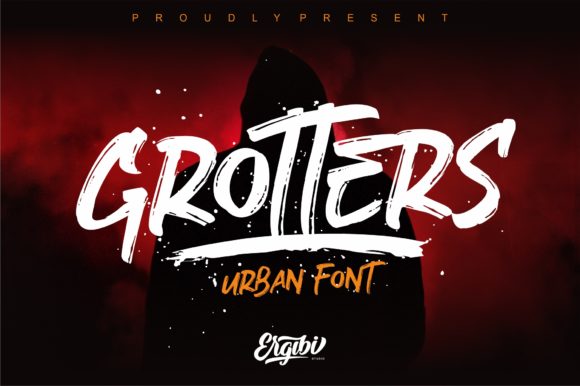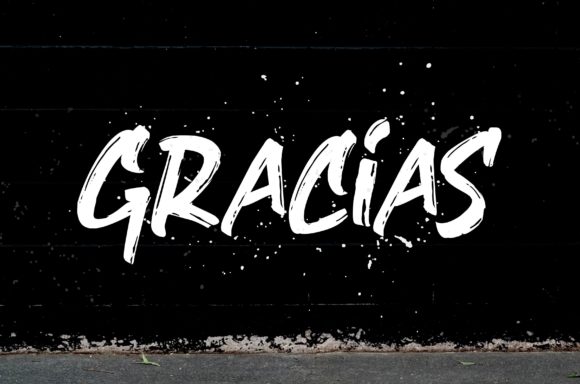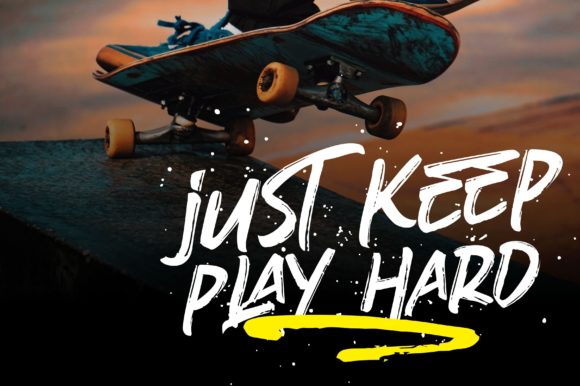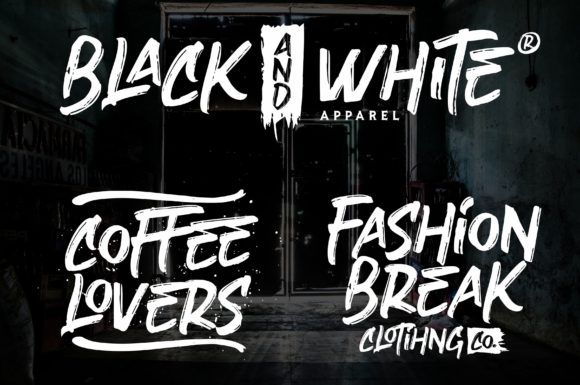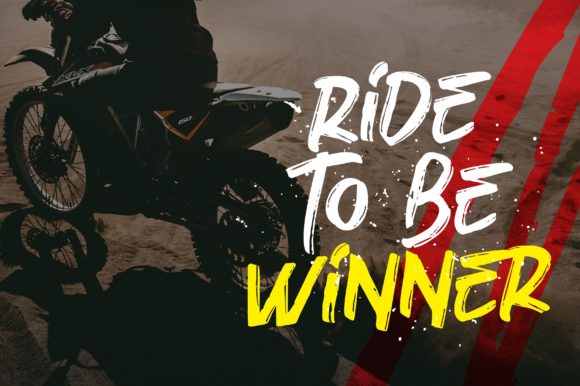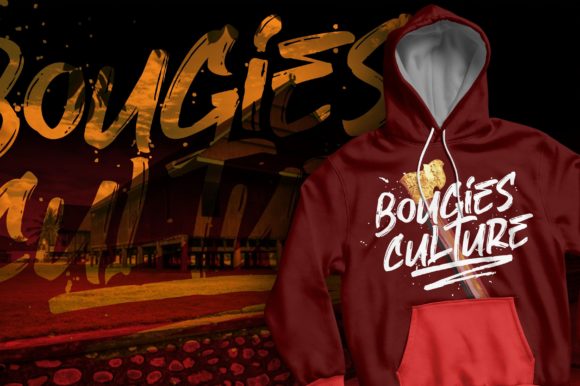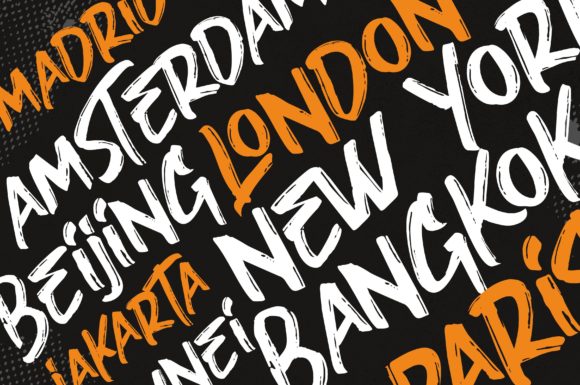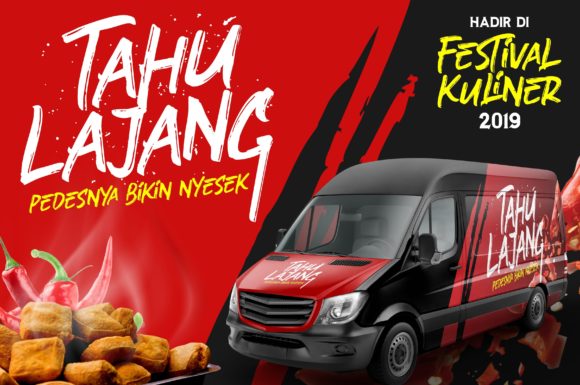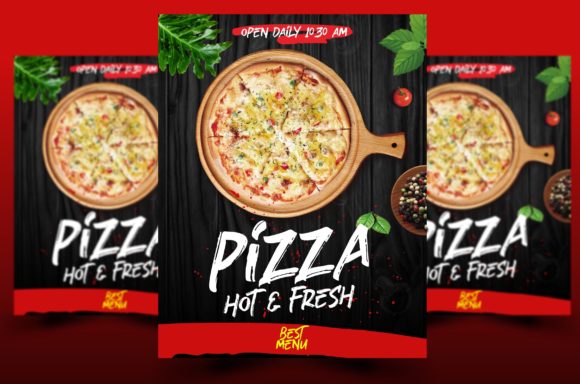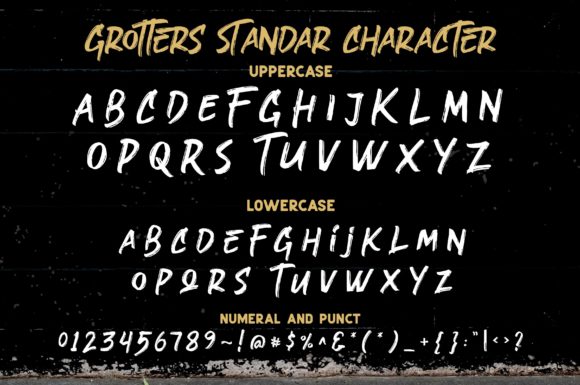
Grotters Font
About Grotters Font
Grotters is a bold and contemporary brush font with a unique feel. It will add an urban twist to any design project!